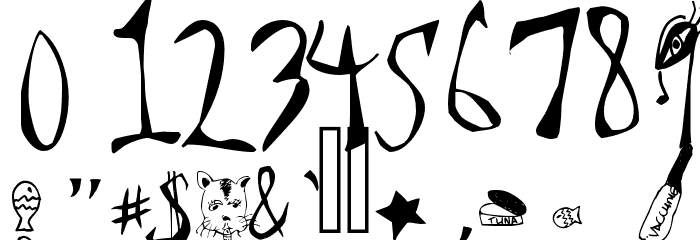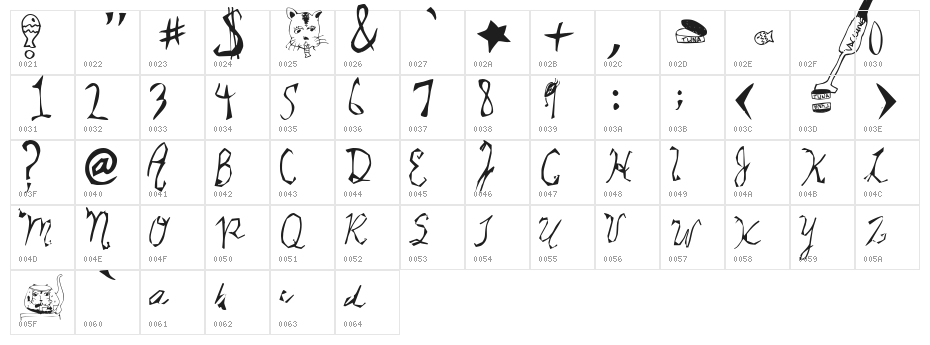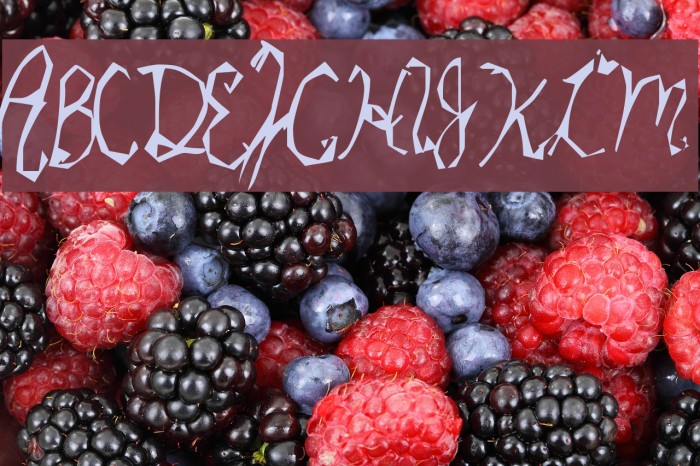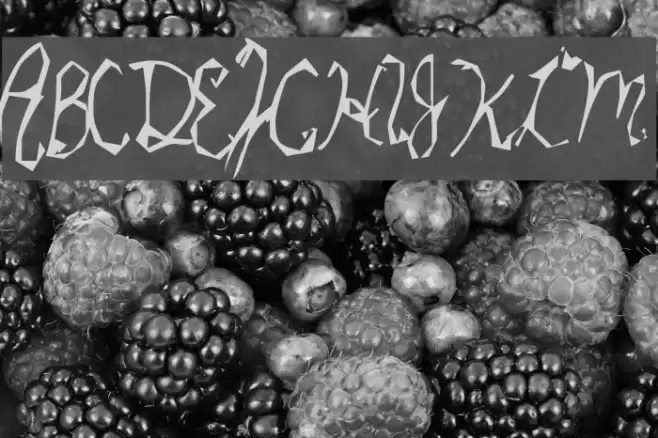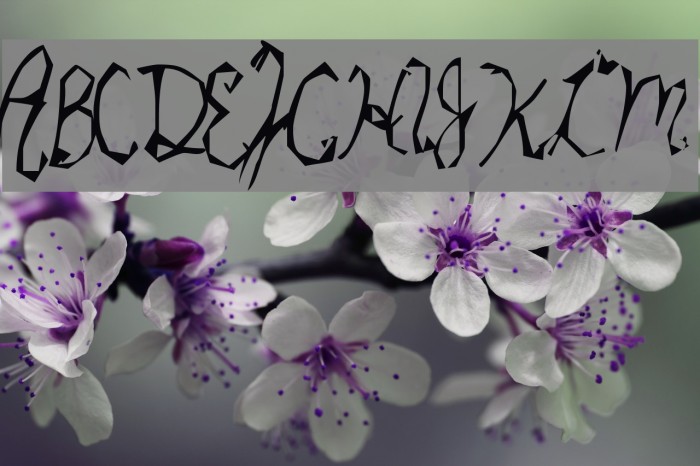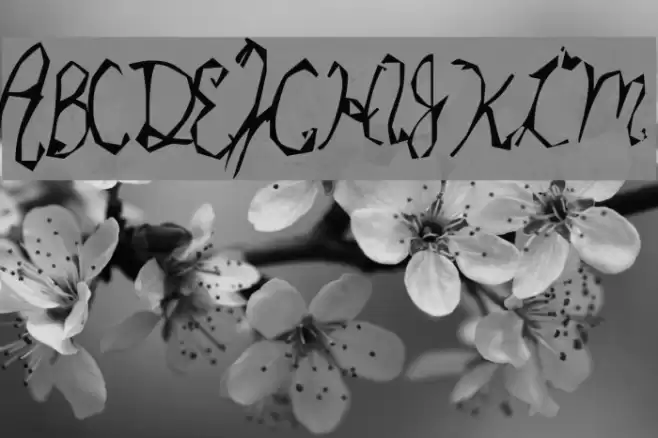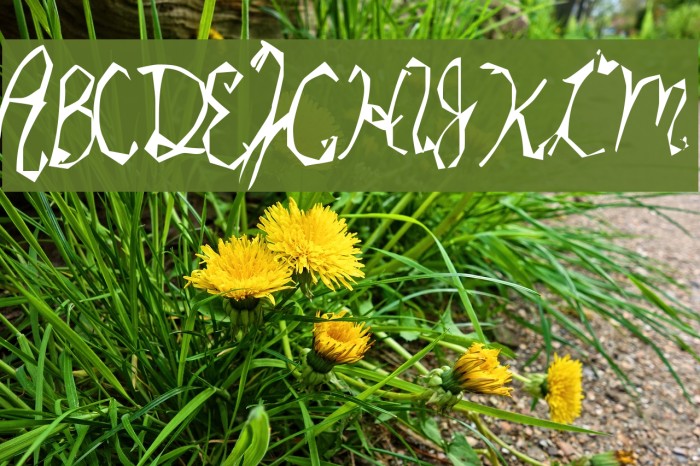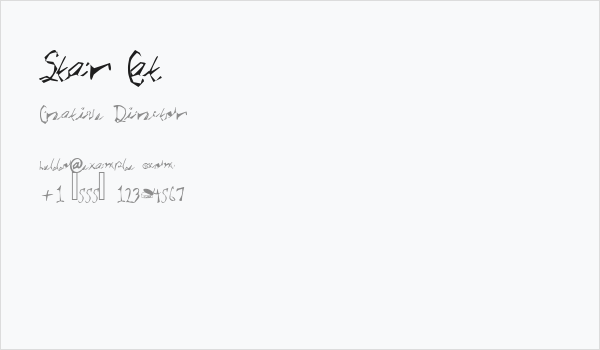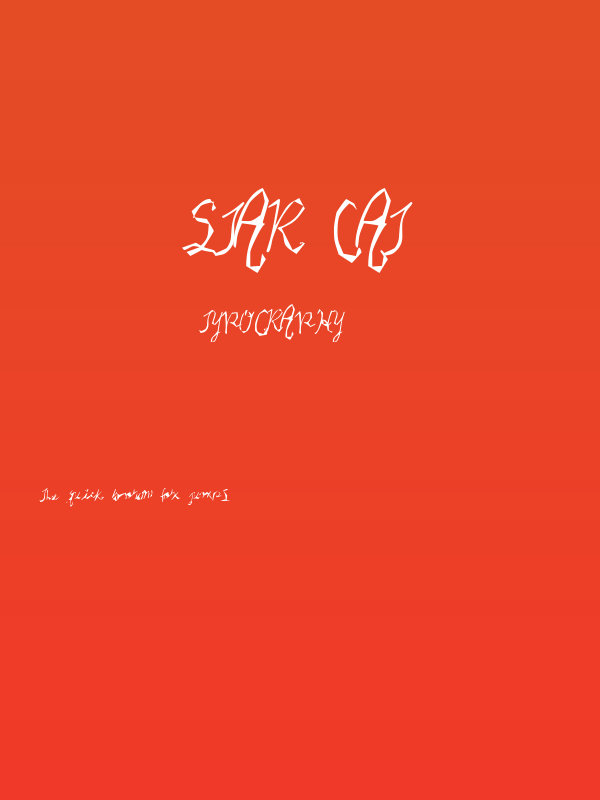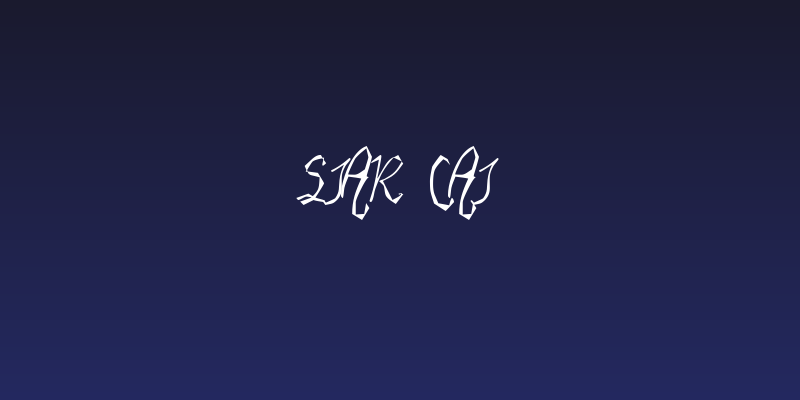
Star Cat Font
Star Cat Description
This font features a highly decorative and artistic style, characterized by its sharp, angular strokes and dynamic flow. The uppercase letters exhibit a bold and striking presence with exaggerated curves and pointed edges, creating a sense of movement and energy. The lowercase letters maintain this dynamic quality, with a slightly more fluid and cursive appearance. Numbers are bold and distinct, with unique shapes that complement the overall style. Special characters are creatively designed, adding to the font's artistic flair. This font is visually captivating, making it suitable for projects that require a strong and artistic visual impact.